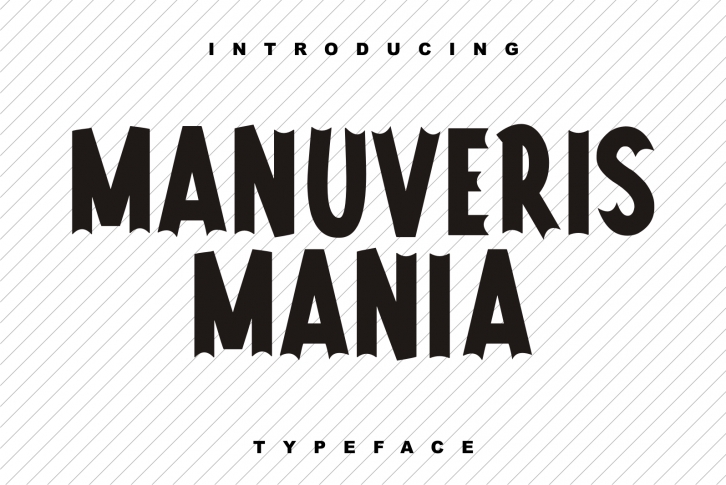
Manuveris Mania is a thick-lettered and cool display font. Simple but with a strong visual effect, this font will instantly make your creations more appealing than any others!